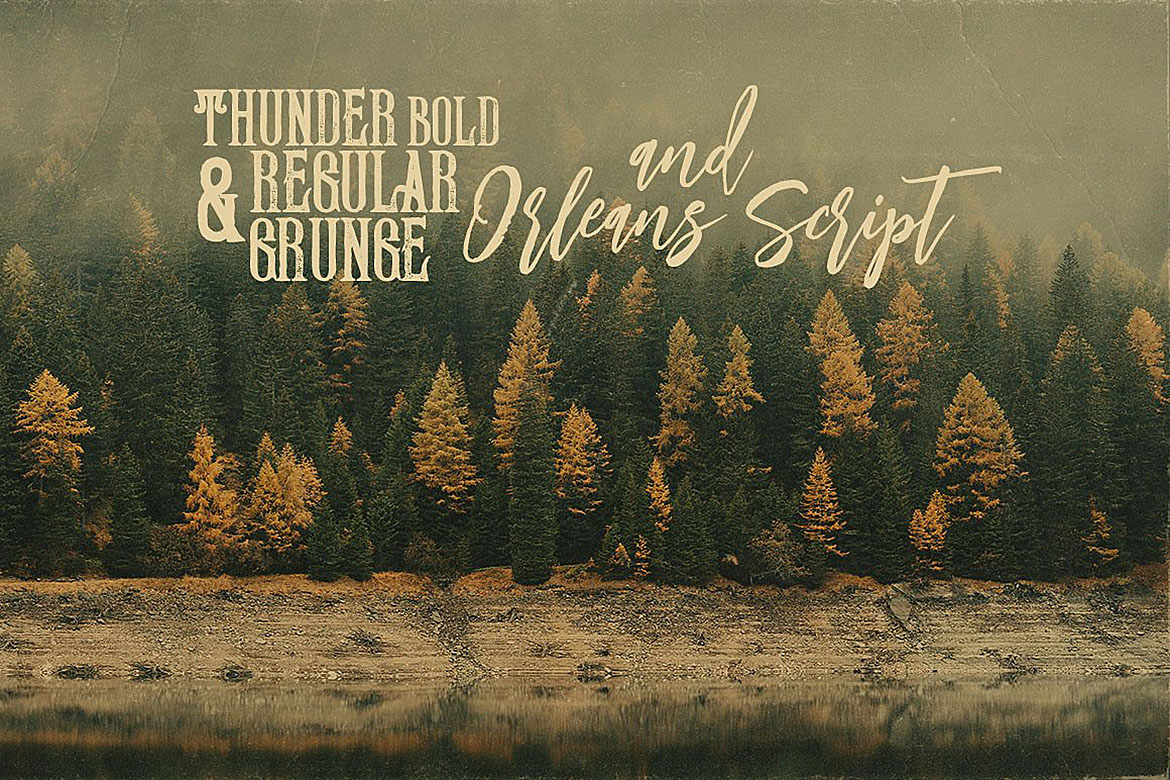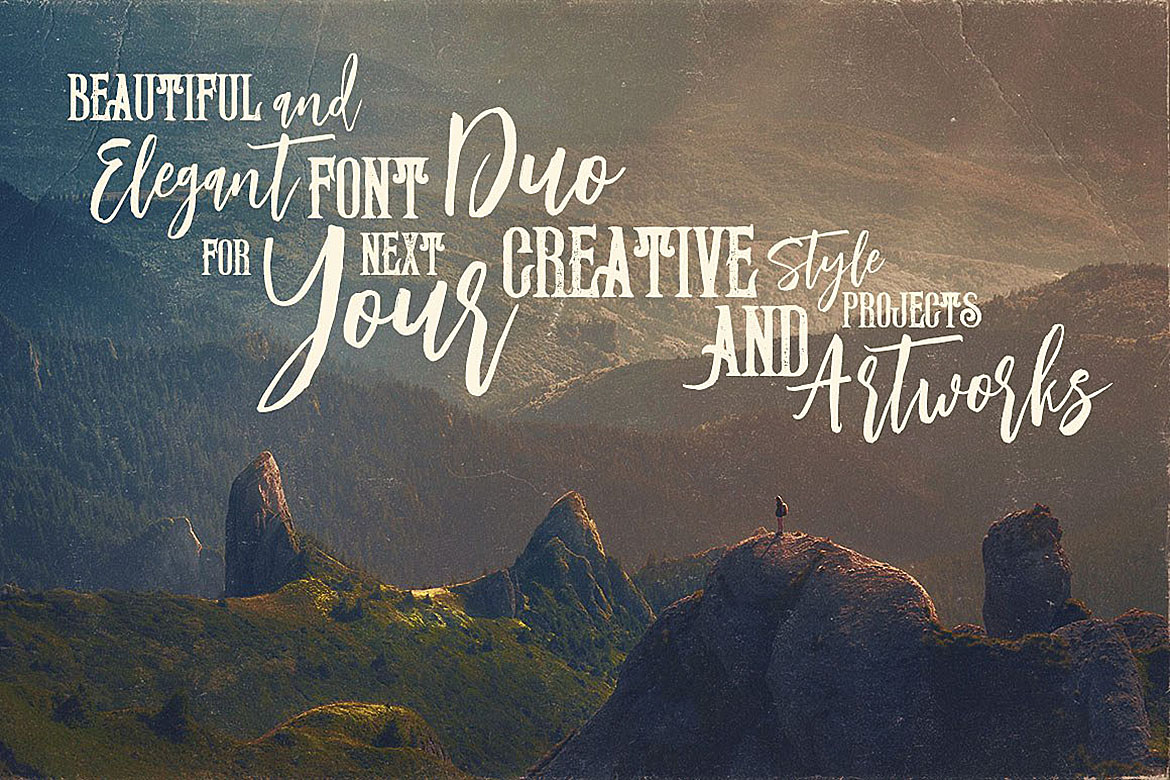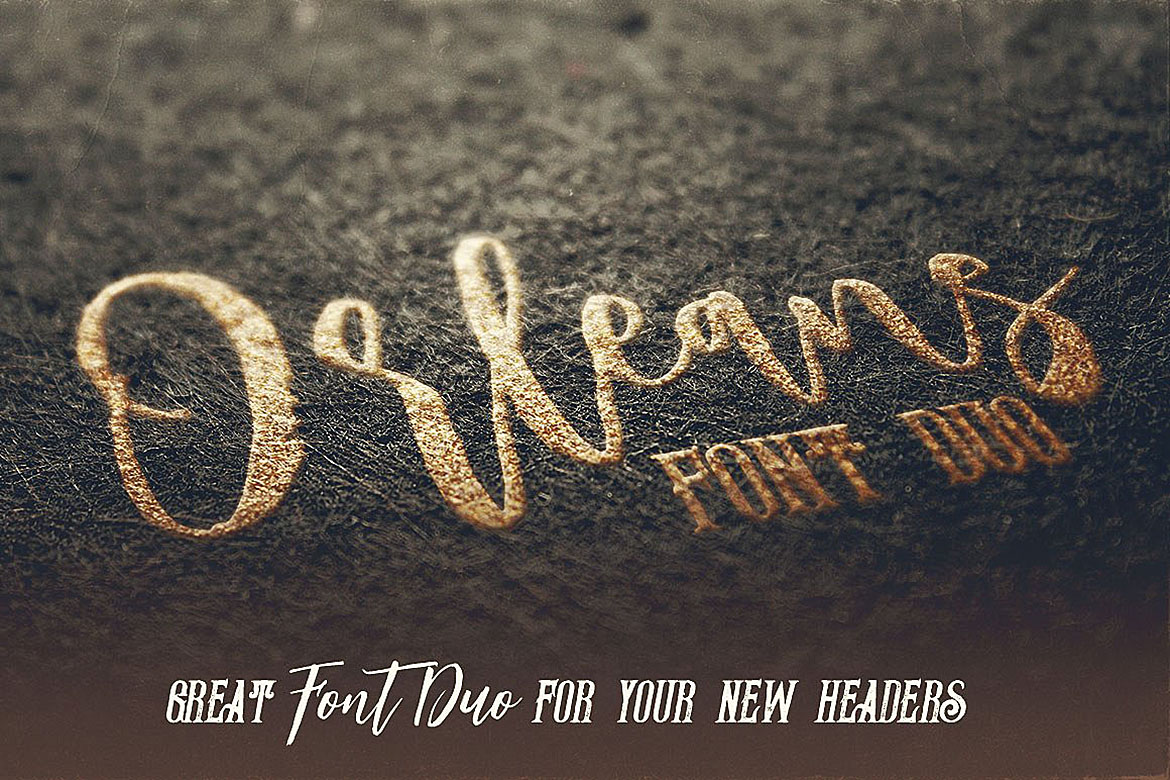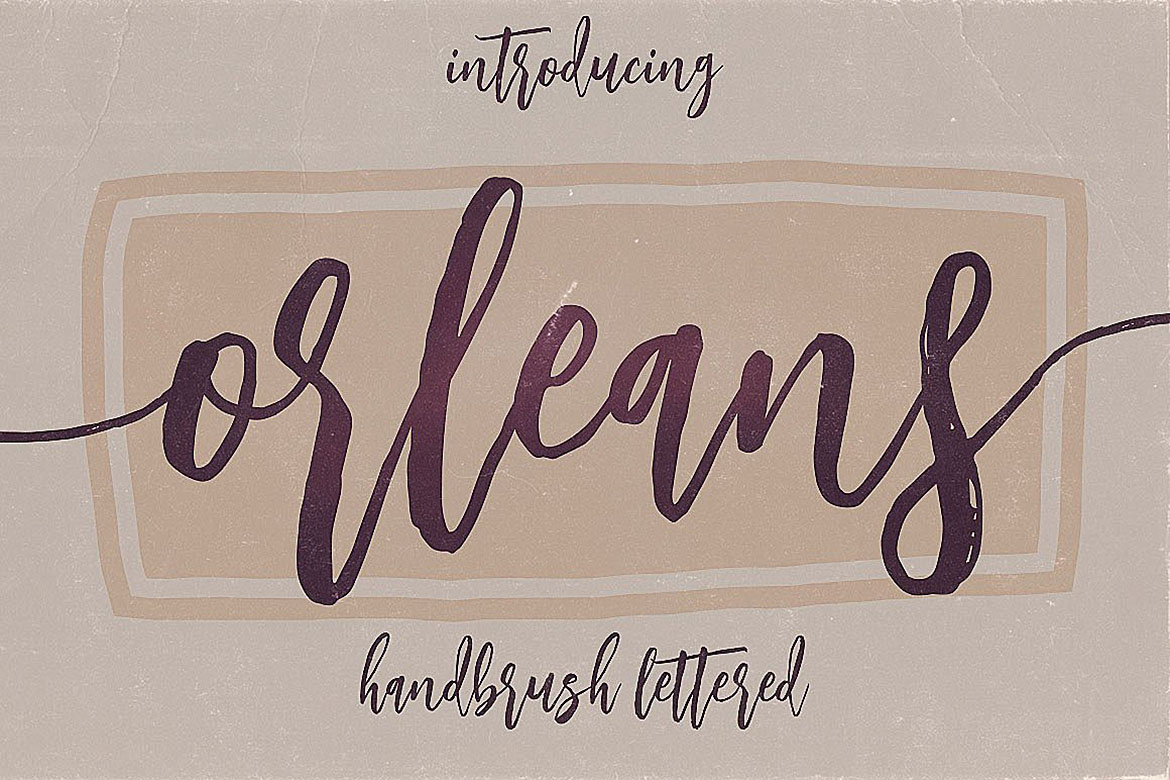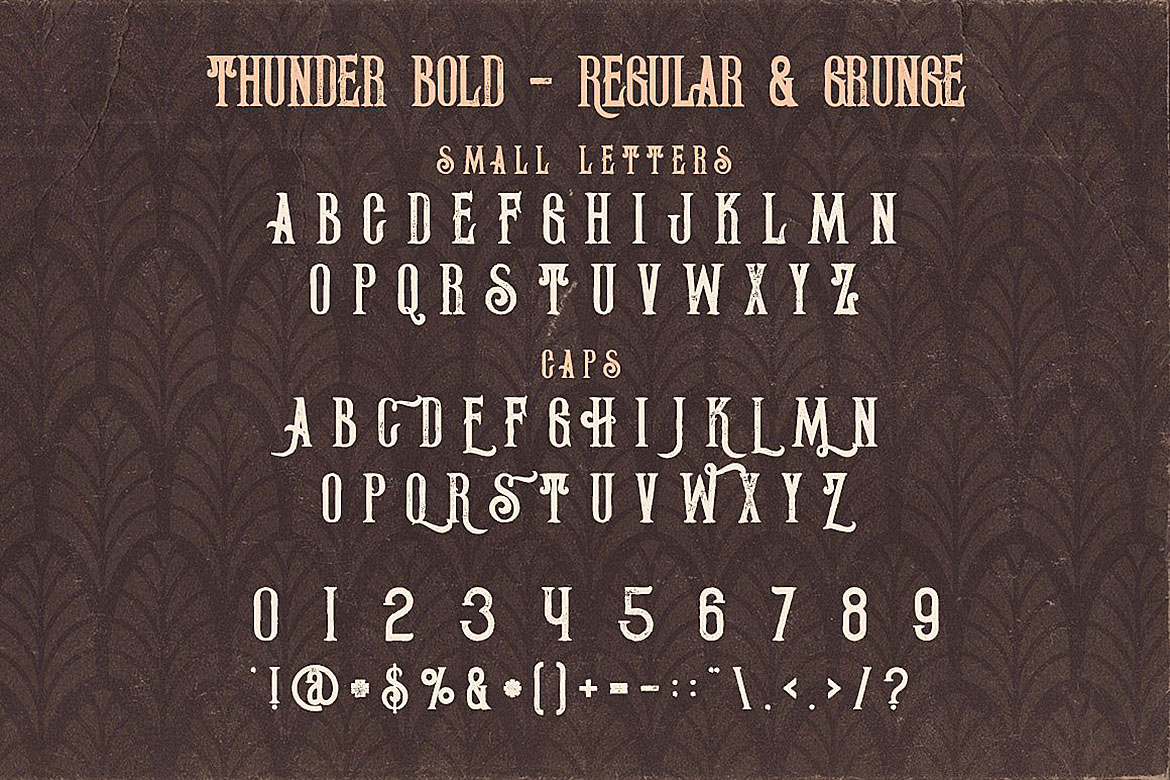
Orleans Script Font Duo Font
About Orleans Script Font Duo Font
Cool and creative style font duo for your new projects. The First font of this duo is a handdrawn & modern brush style script font with multi-language support and lot of stylistic alternates. Second font is condensed serif display font with regular & grunge version (without multi language support).